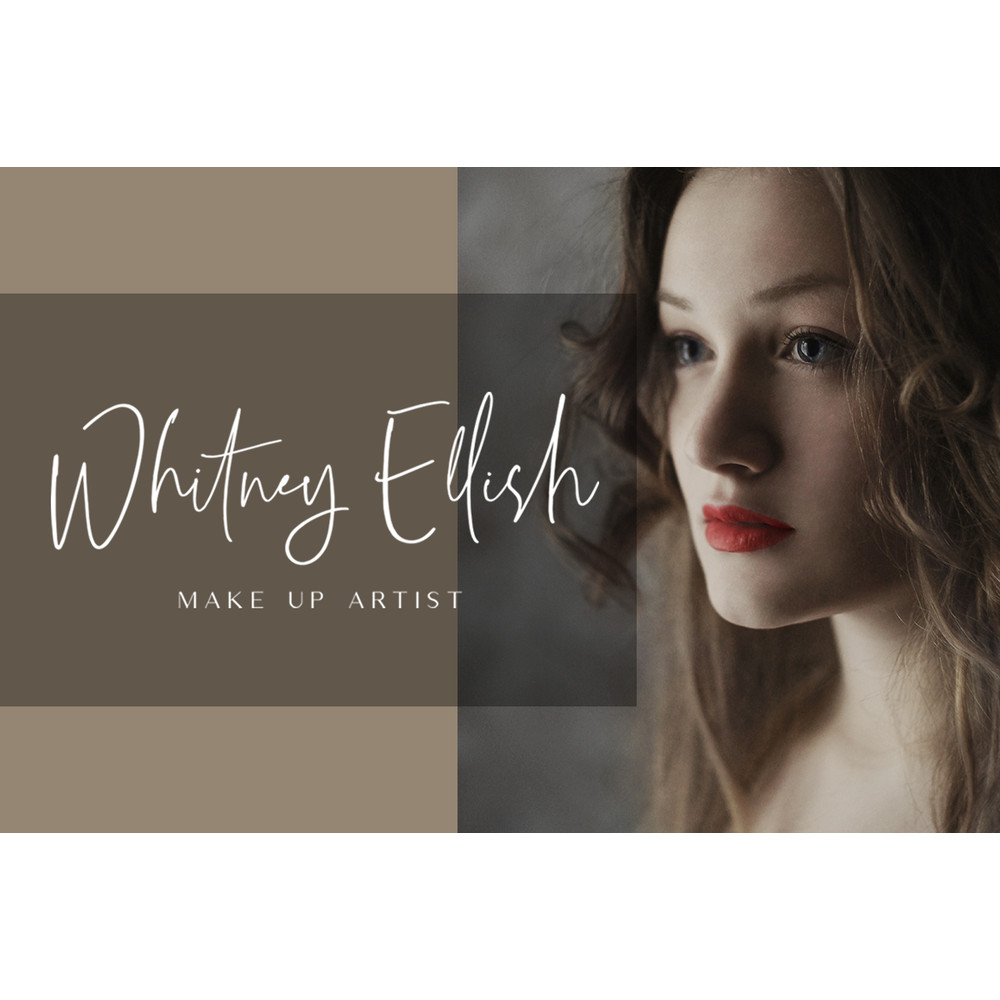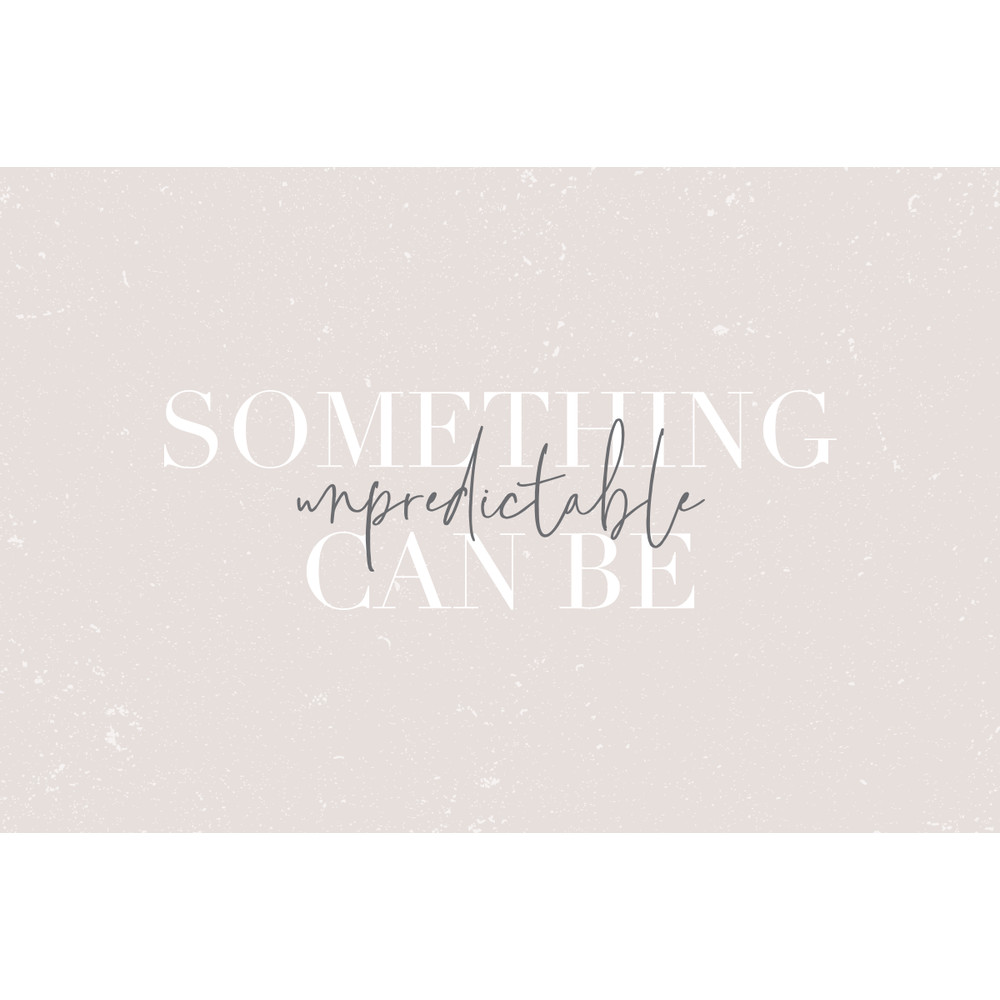
his font combines stylish letter shapes with contemporary twist. It’s the perfect fit for all luxury projects, such as elegant logos, printed quotes, lovely wedding invitation cards, social media headers, product packaging and a lot more!
It includes full set of elegant uppercase and lowercase letters, multilingual symbols, numerals, punctuation. The font has smooth wet ink texture, so would be perfect for all types of printing techniques+you can do embroidery, laser cut, gold foil etc.
This font has Regular and Bold family, so you can choose the best for your work:)
– More than 100 of glyphs
– Ligatures